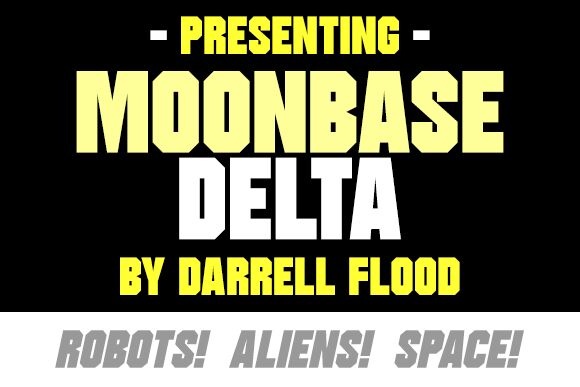
Moonbase Delta Italic
Moonbase Delta is a bold, futuristic display font that commands attention. With its condensed, italic form, it exudes a sense of speed and dynamism, perfectly suited for sci-fi aesthetics, branding, and headline text. Designed by Daniel Flood, this font's sharp, angular letterforms and weighted strokes create a distinct visual impact, evoking the aesthetics of a lunar outpost or advanced technology.
Moonbase Delta's unique character lends itself to a wide range of applications, from movie posters and video game logos to packaging and editorial design, where it can infuse a strong, contemporary edge.